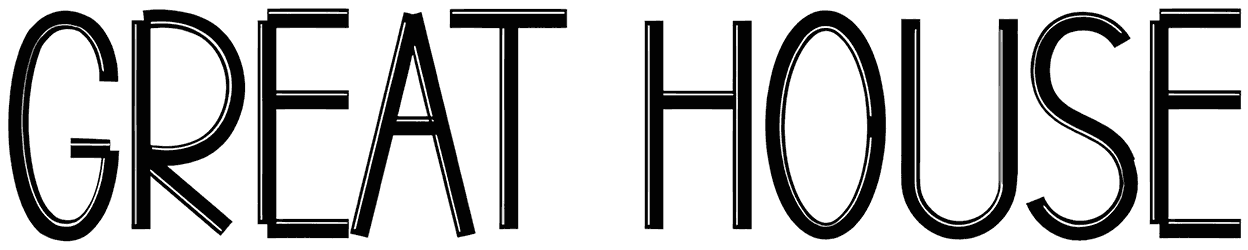
Goodnight London Sans font remains a consistent and reliable choice in a world where trends come and go. This sans-serif font is versatile and can be used for anything from formal invitations to casual social media posts.
So the next time you need to add a touch of class to your designs, don’t hesitate to choose this font, and don’t let the lack of small letters deter you from your decision. Because Goodnight London Sans always makes you professional and put-together.